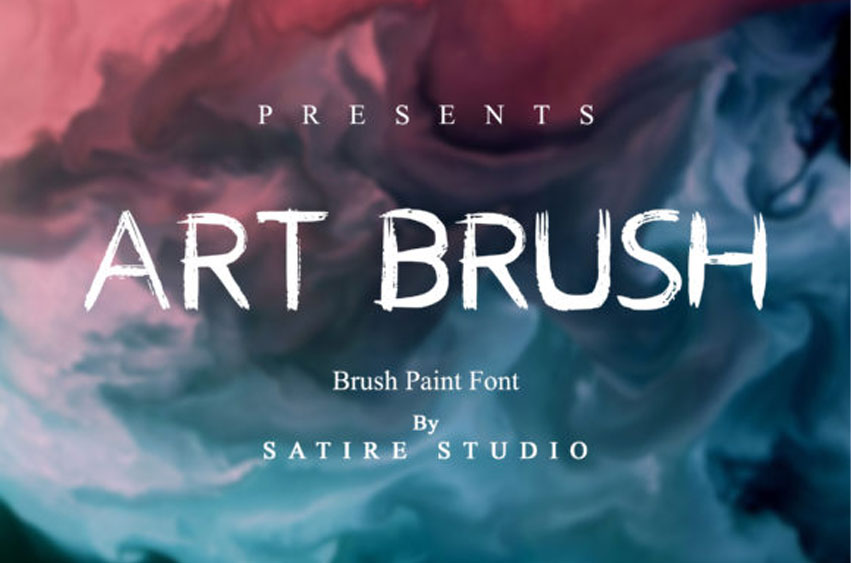
Art Brush Font
Art Brush Font is a brush paint font, beautiful on invitations like greeting cards, branding materials, business cards, quotes, posters, and more!
Perfectly crafted to meet all your design needs.